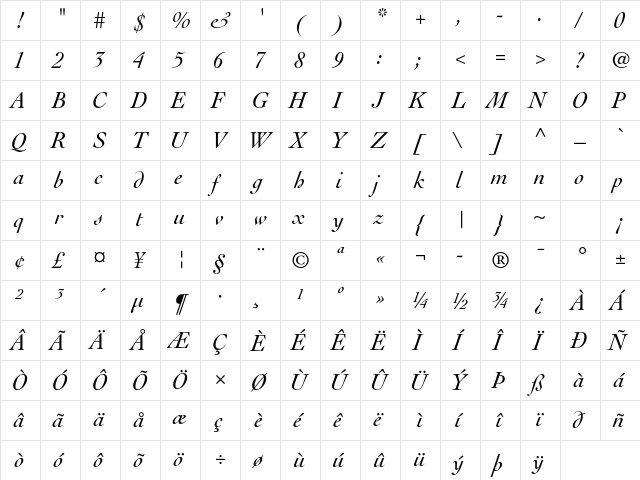
Cochin LT Std Italic Font Preview
| Designer | Matthew Carter |
Design Context for Cochin LT Std Typeface
Cochin LT Std offers clean, dependable letterforms without strong stylistic allegiance, making it a practical choice for designers who need flexibility. The dynamic lean of this cut emphasises speed and emphasis in any layout. The delicate stroke weight brings airiness and refinement to layouts.
Pro Tip: Try Cochin LT Std for annotation and caption copy alongside an upright companion — the contrast in angle creates a dynamic but ordered typographic system.